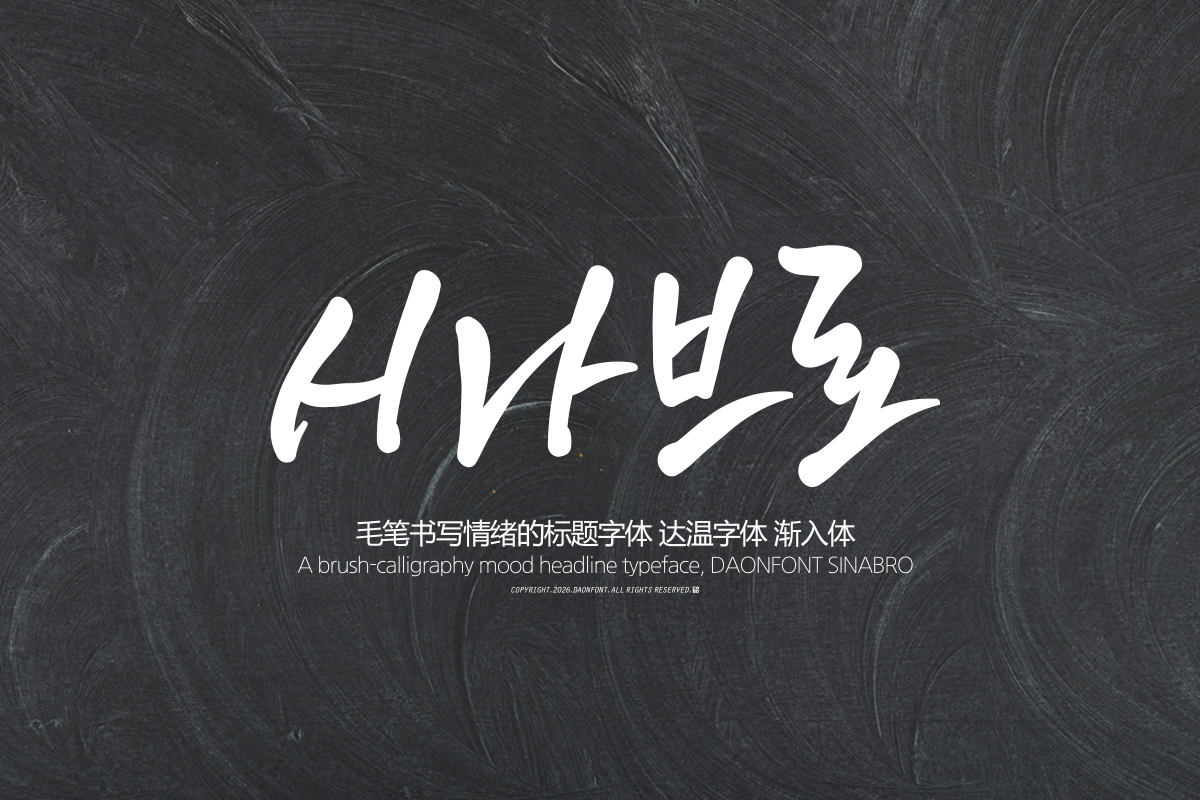
DAON SINABEULO 500
'SINABEULO' is a calligraphy typeface that captures the natural flow of calligraphy, conveying an unadorned, comfortable atmosphere and a clean impression.